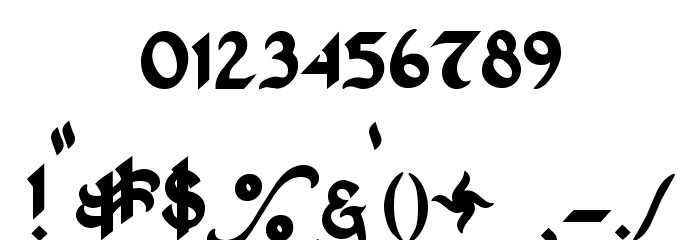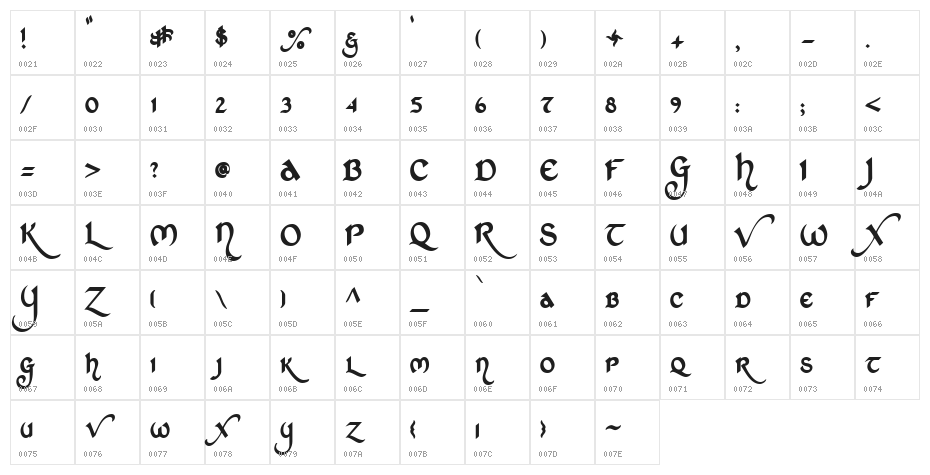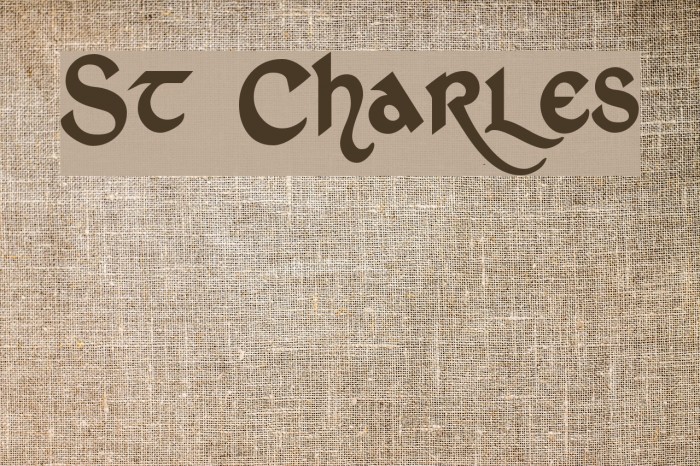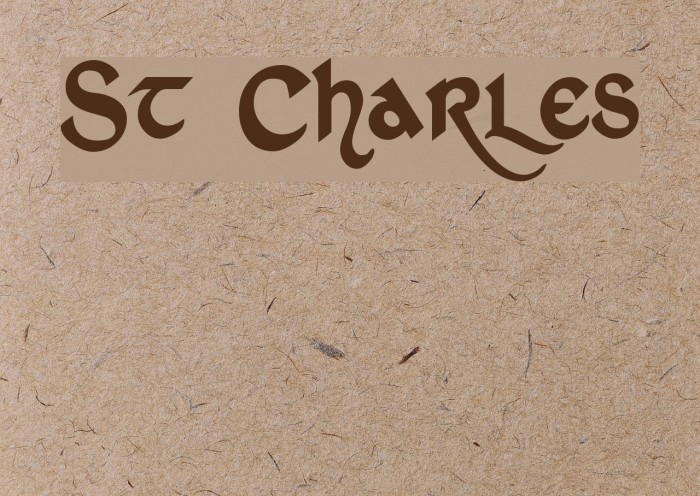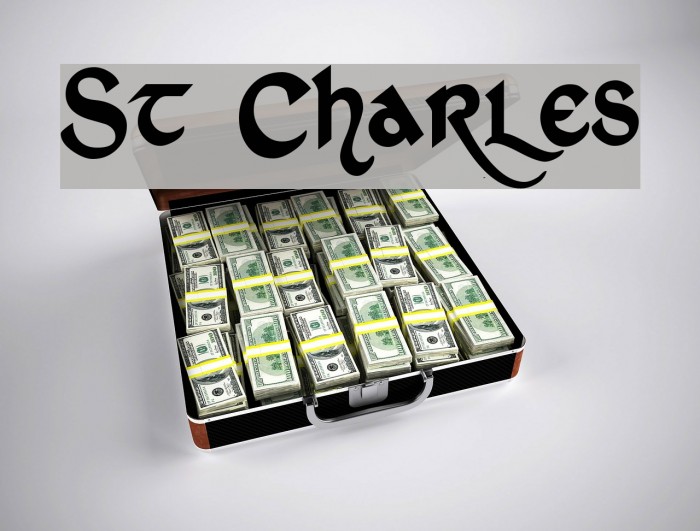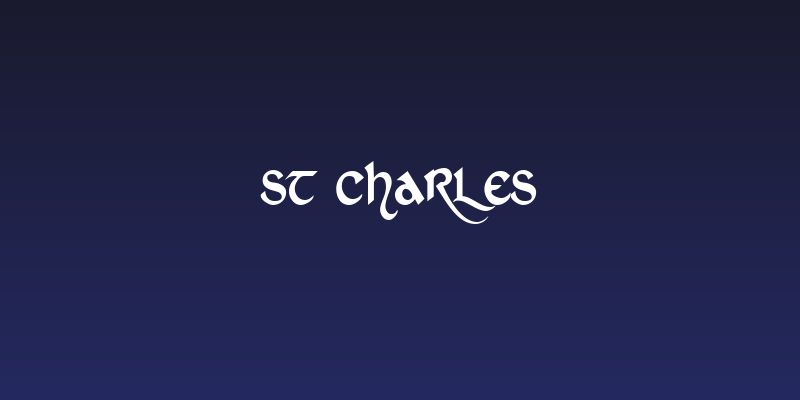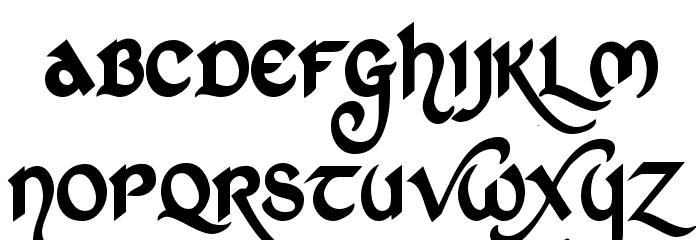
St Charles Font
St Charles Description
This font features a bold, decorative style with a strong blackletter influence. The characters are ornate, with intricate curves and sharp angles that give it a dramatic and historical feel. The uppercase and lowercase letters maintain a consistent style, with the uppercase being slightly more elaborate. The numbers and special characters are designed to match the overall aesthetic, ensuring a cohesive look across all glyphs. This font is ideal for projects that require a touch of elegance and tradition, such as invitations, certificates, or branding for luxury products.